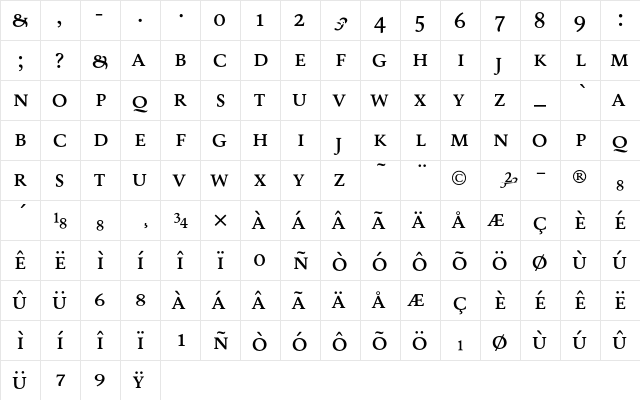
Economist101 SmallCap Font Preview
Economist101 SmallCap
Design Context for Economist101 Typeface
Economist101 offers clean, dependable letterforms without strong stylistic allegiance, making it a practical choice for designers who need flexibility.